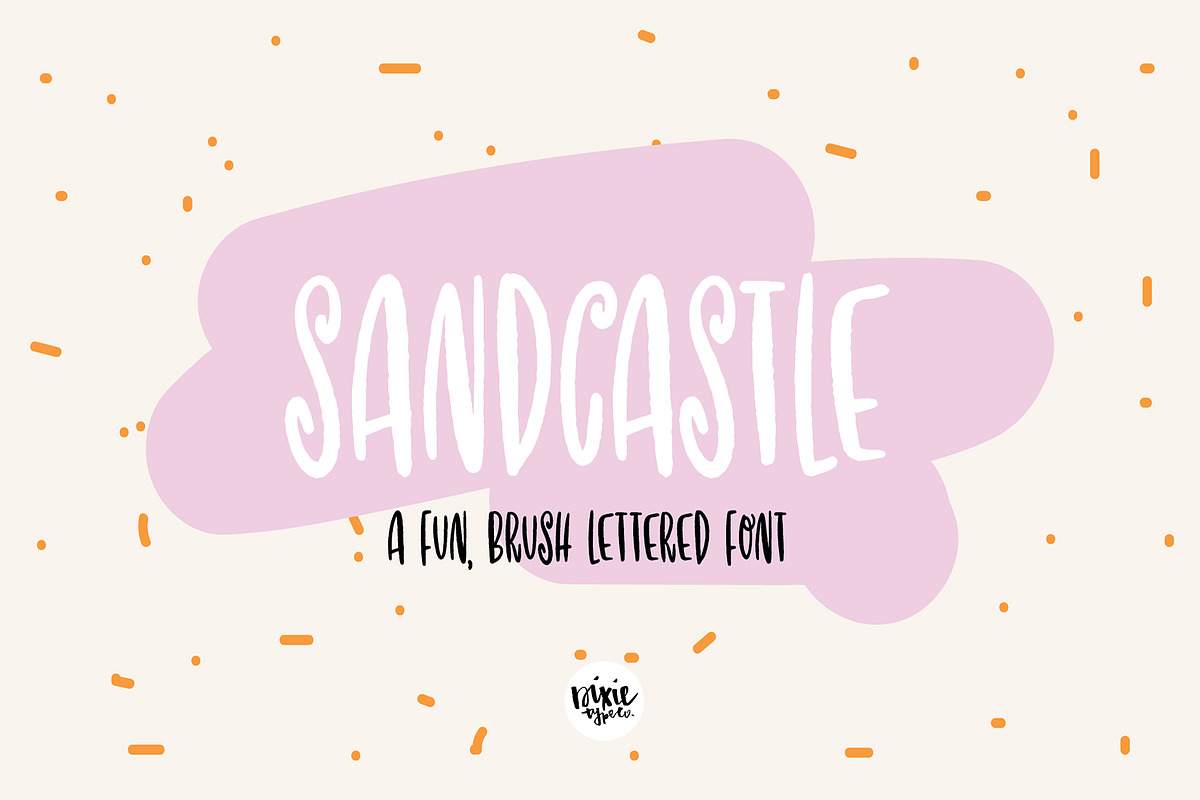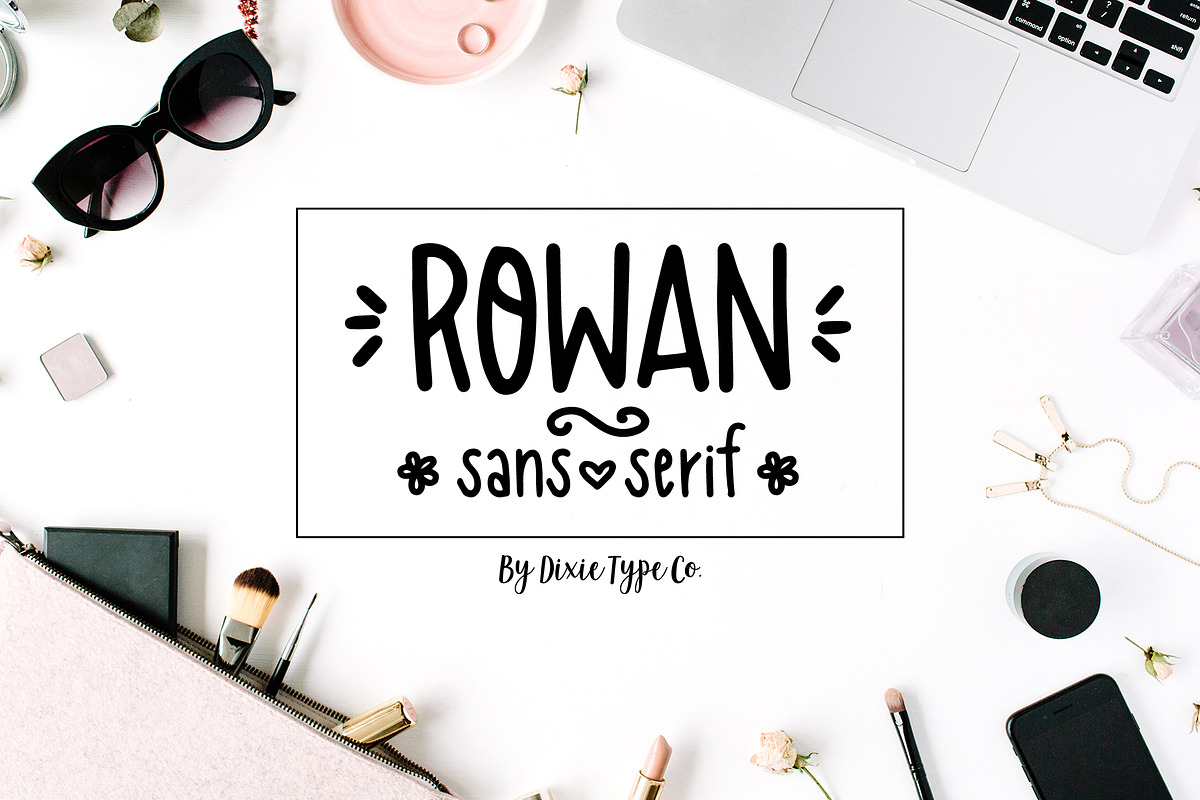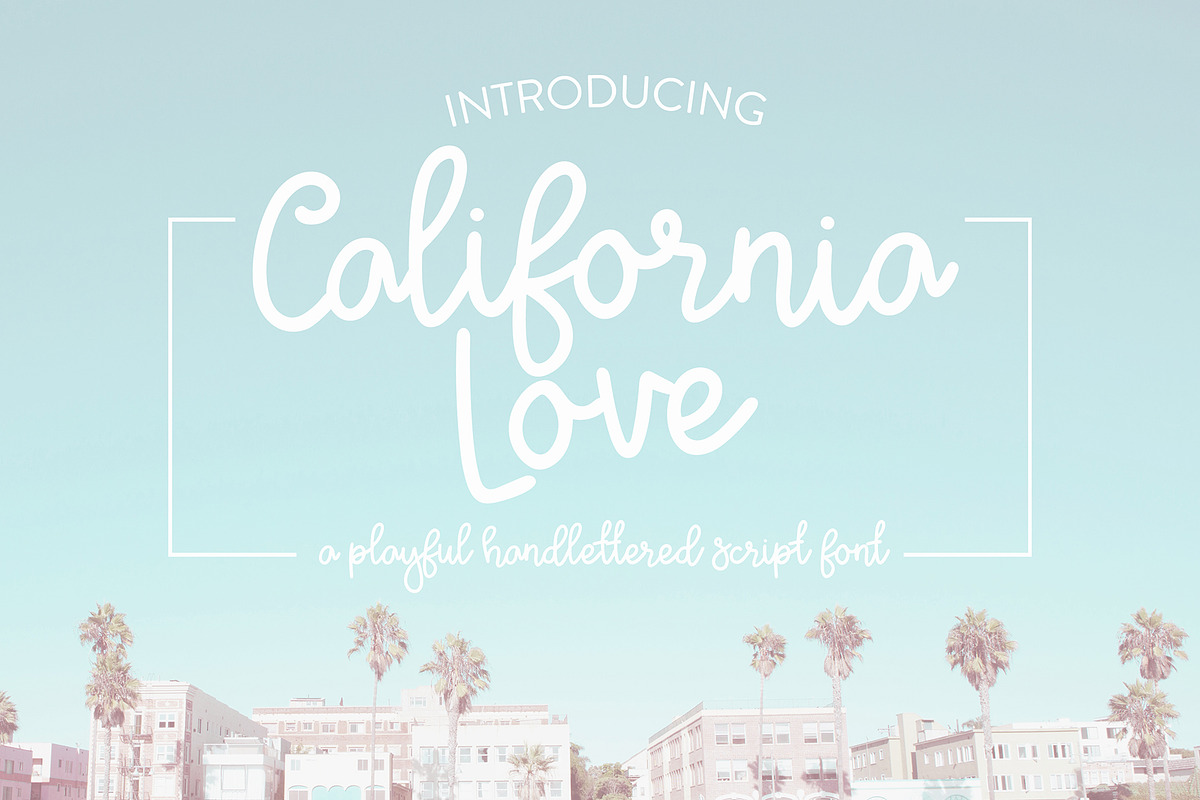
These fonts were all hand lettered with a brush and ink, or iPad Pro. Bella Rose, Sandcastle, Blossom Brush, and Allysa Script have slightly distressed edges. The other fonts are smooth.
The 8 fonts included:
- Bella Rose:
- Sandcastle:
- Chey Brush Script:
- Blossom Brush:
- California Love Script:
- Newport Beach:
- Allysa Script:
- Rowan Sans: